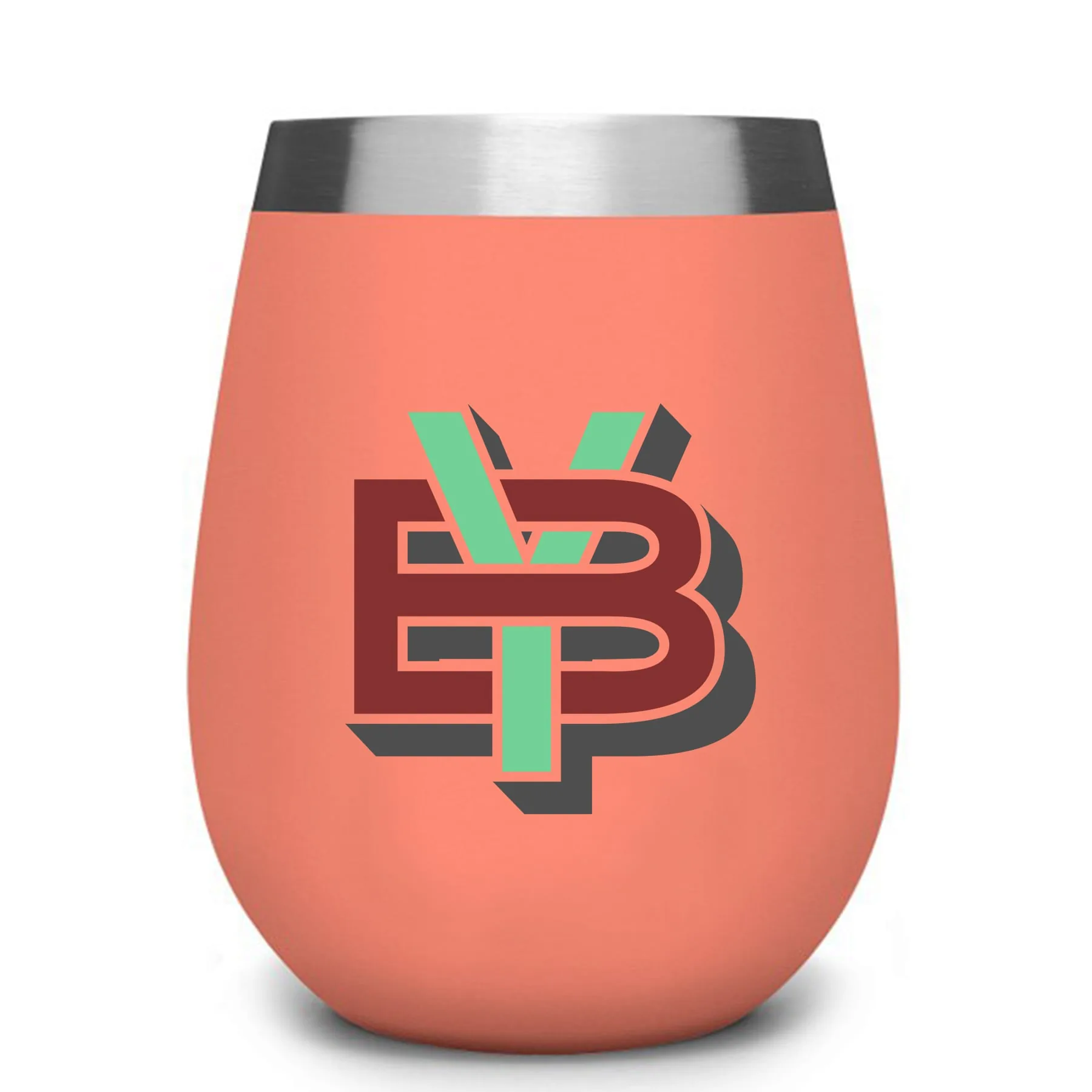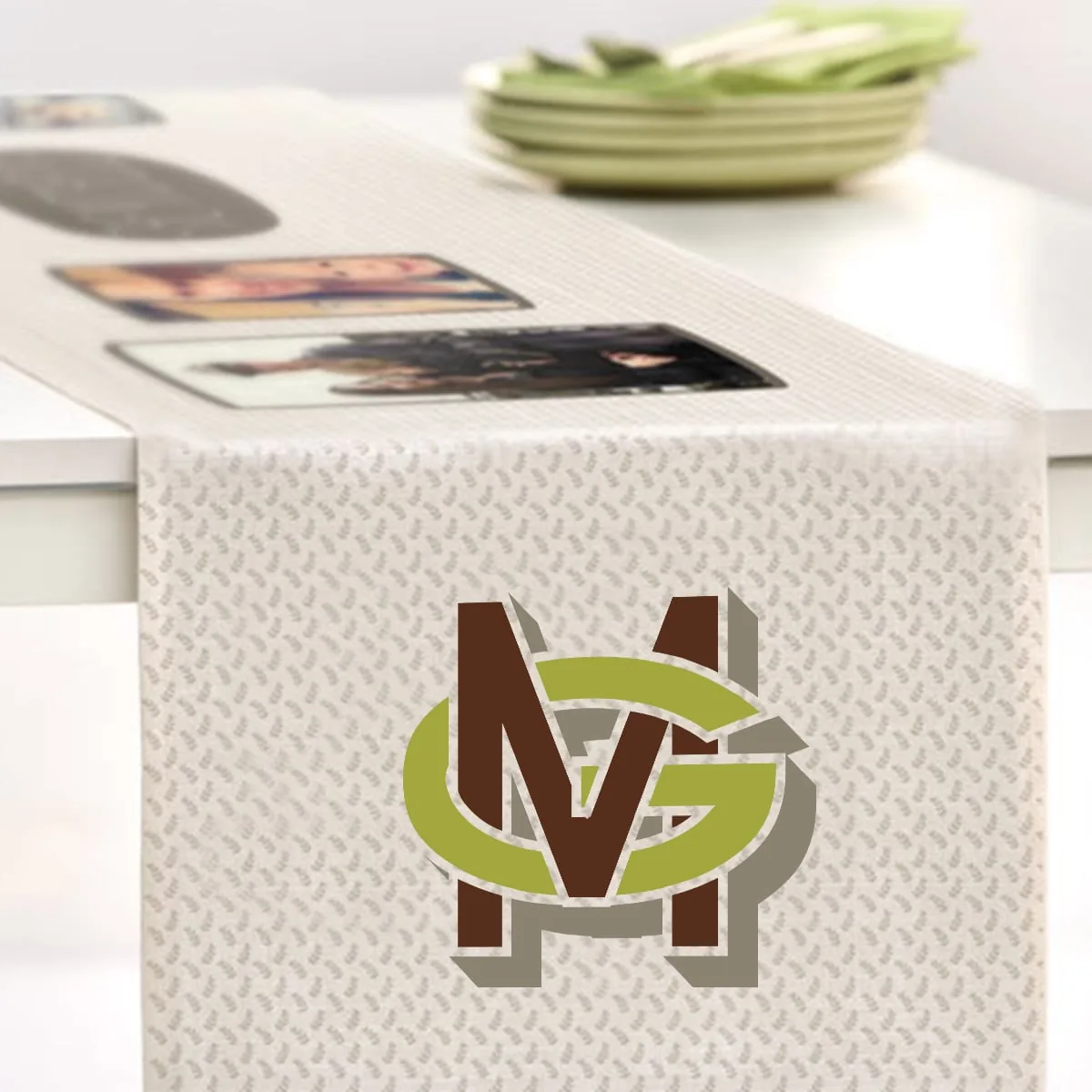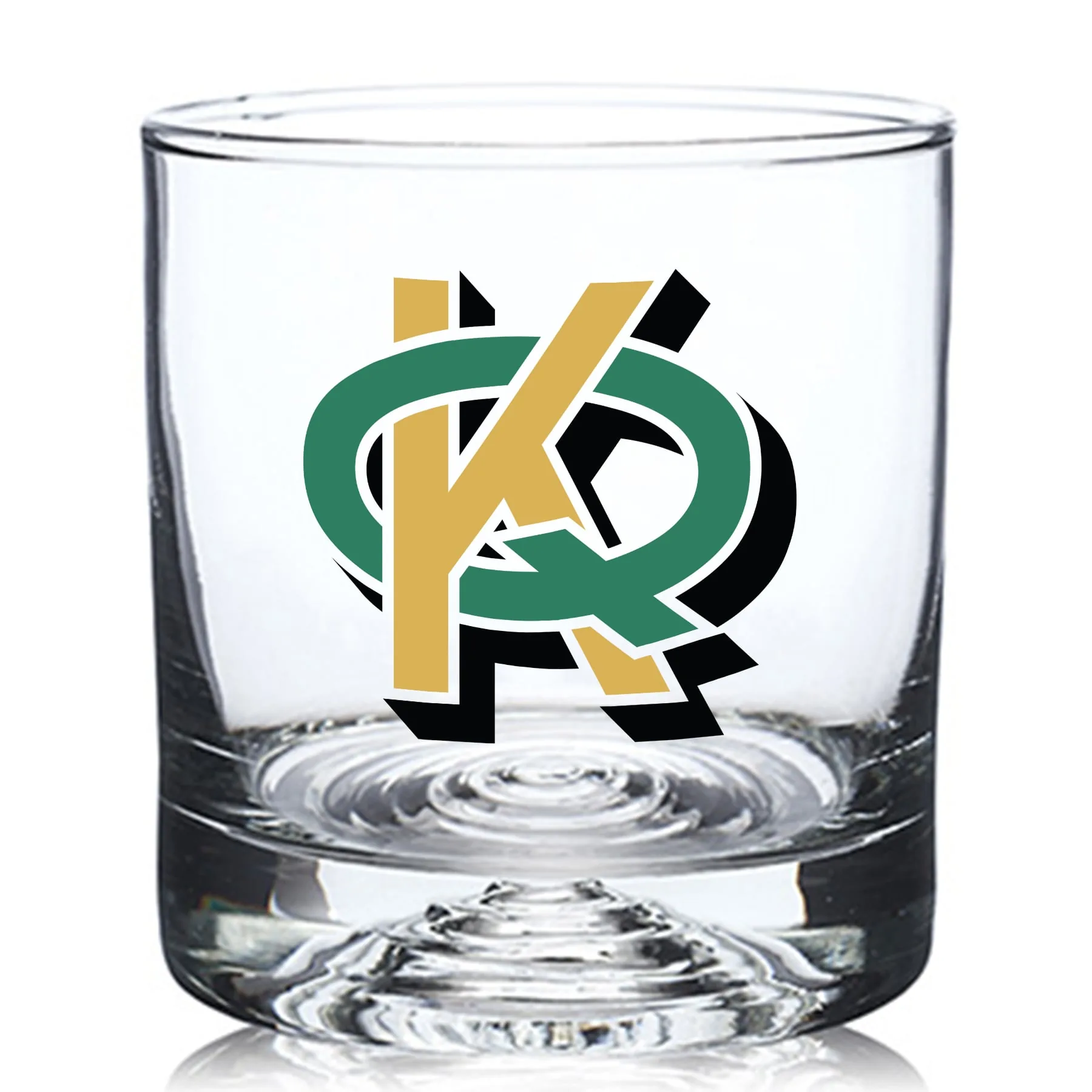
3D Shadow Interlocking Monogram TrueType Font - Keyboard Typeable
*** The characters are one-color (single-layer) designs. You need to edit to make multi-color monograms or multi-layered decals like our photos ***